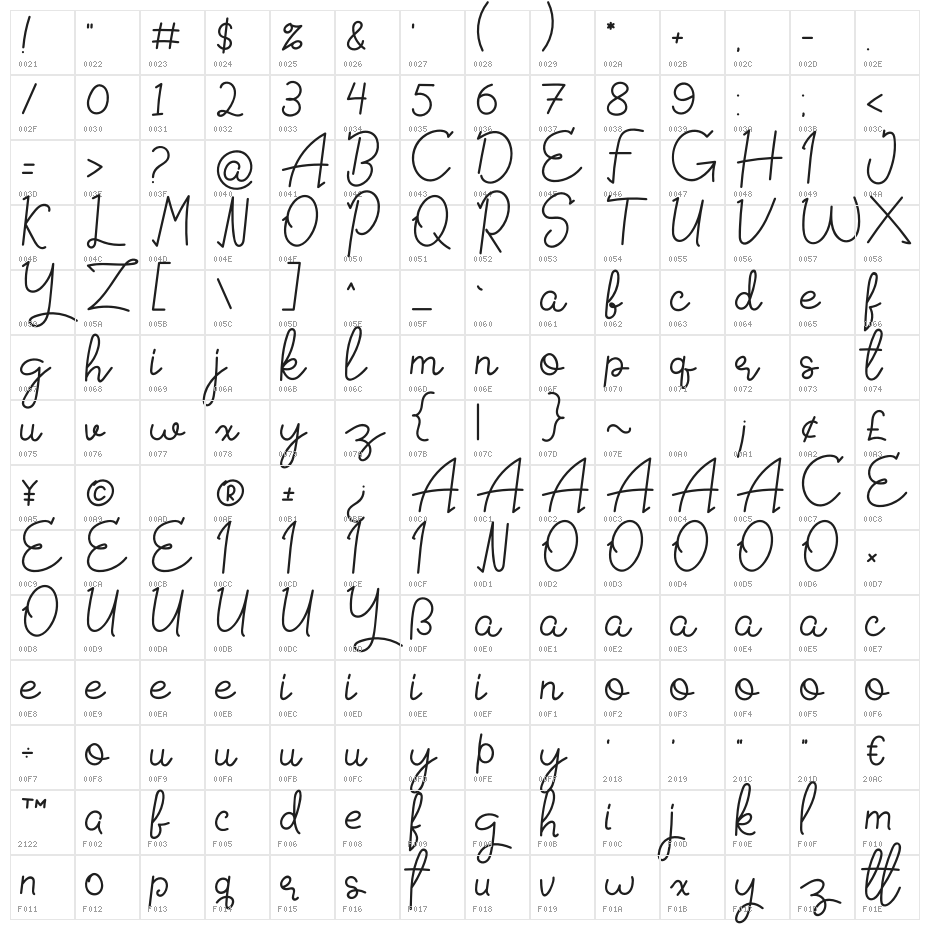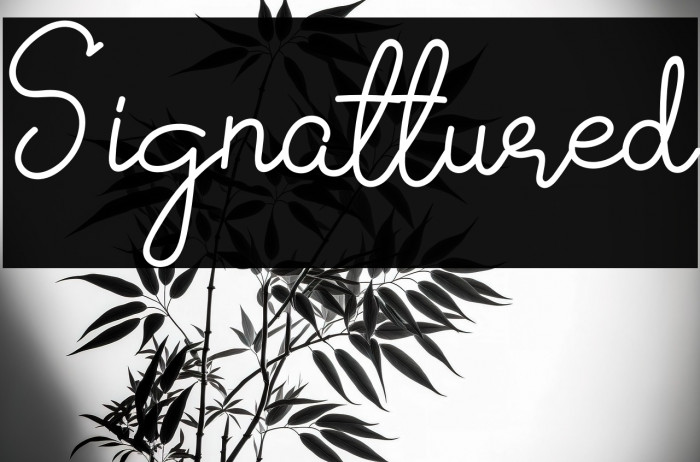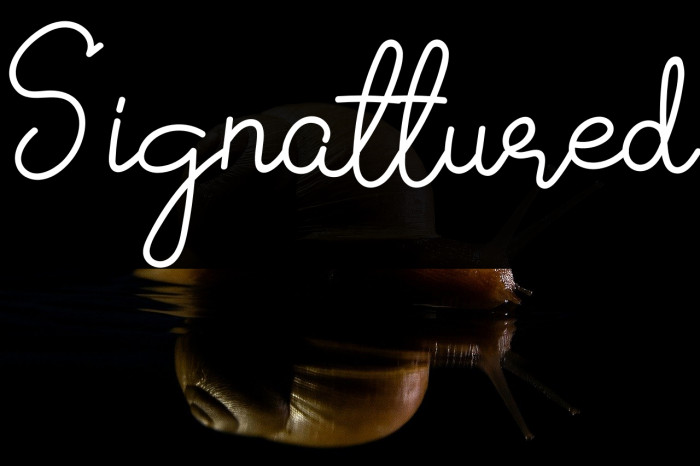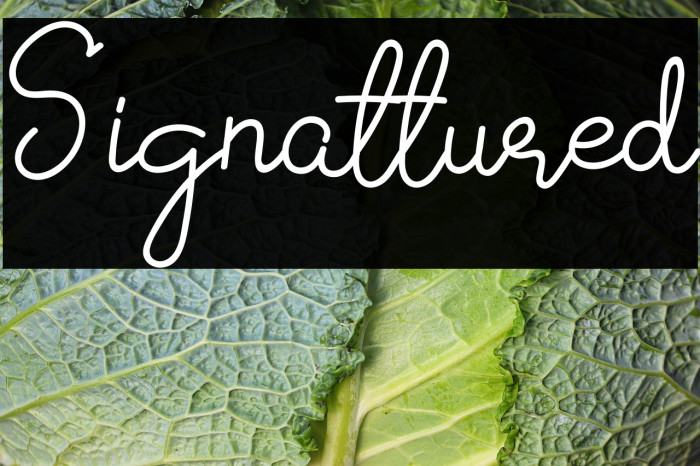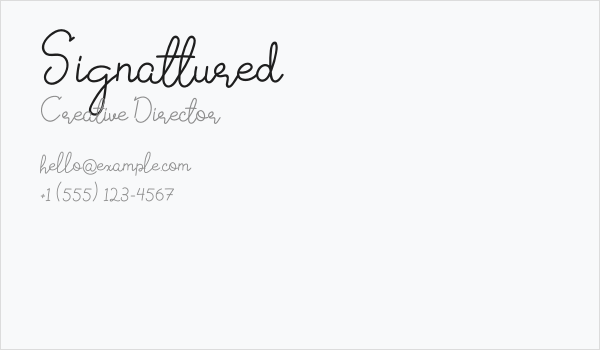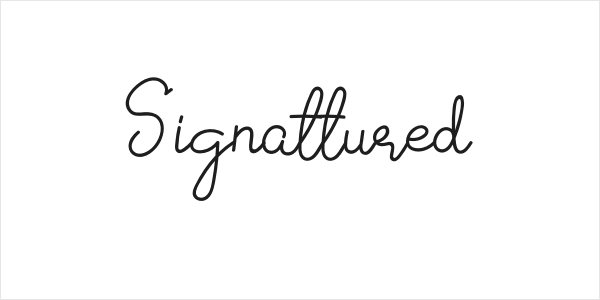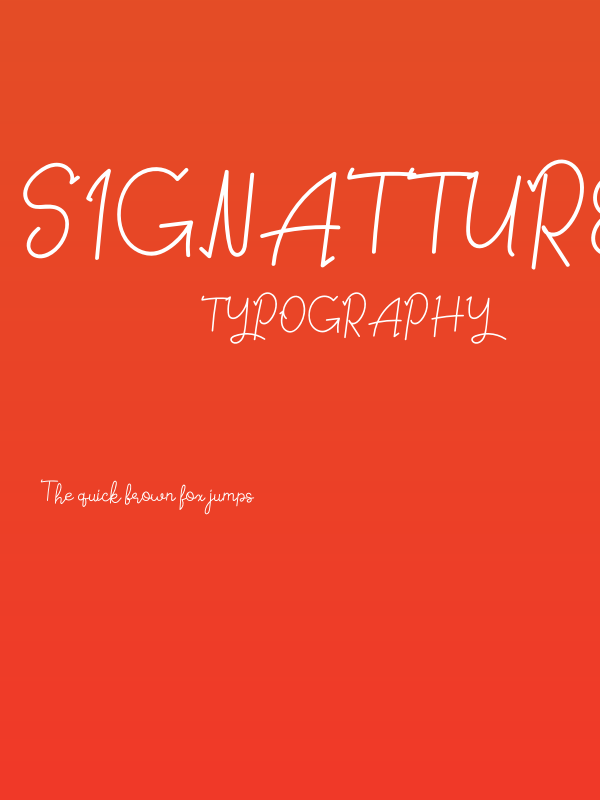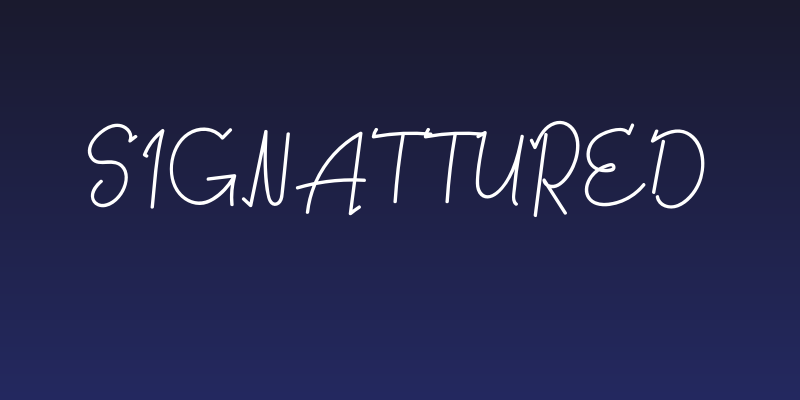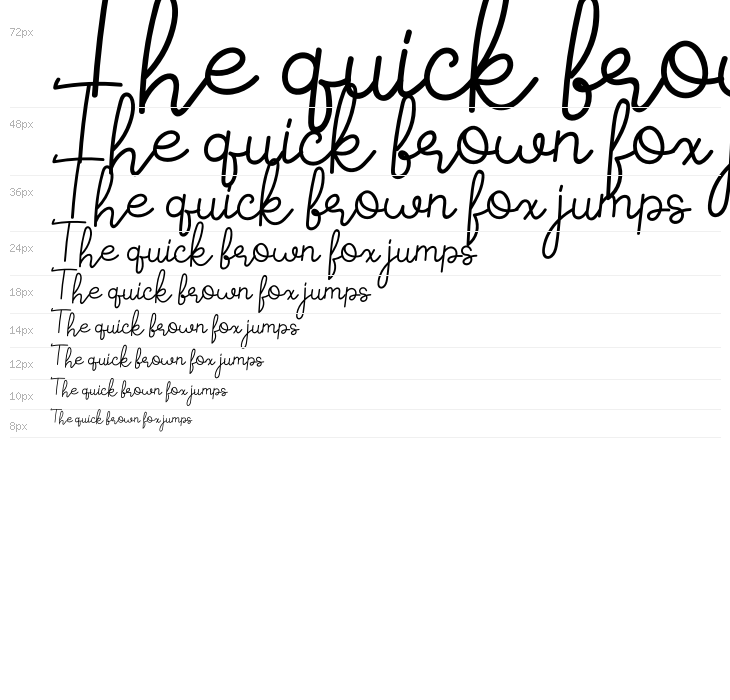
Signattured Font
Signattured Description
This font features a handwritten, cursive style with a playful and casual appearance. The uppercase letters are tall and slightly slanted, giving a sense of movement and fluidity. The lowercase letters are more connected, enhancing the script-like quality. The numbers are rounded and maintain the same playful style, while the special characters are consistent with the overall design. The strokes are smooth and even, providing a harmonious look across all characters.
| Proposed Projects | This font is ideal for personal branding, invitations, greeting cards, and creative projects that require a personal touch. |